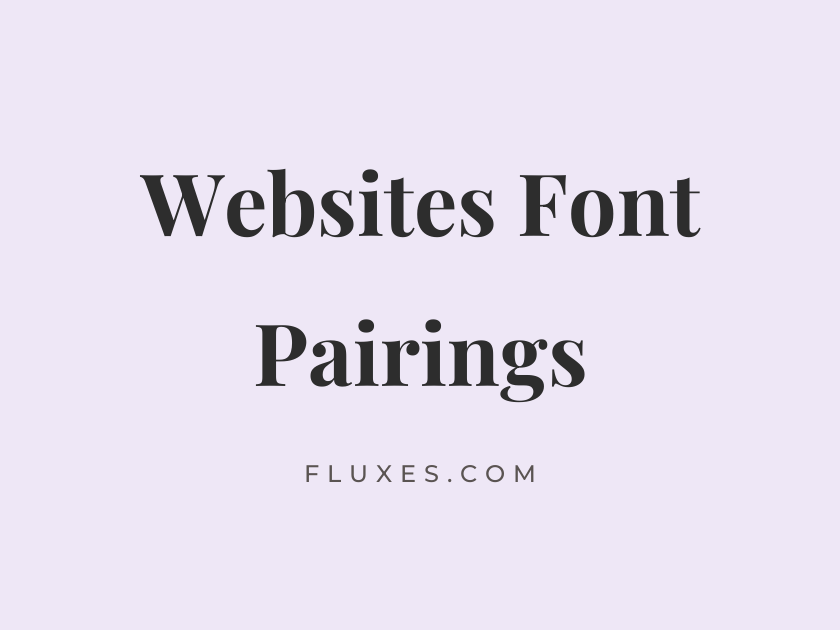
33 Best Font Pairings for Websites
A strong website relies on the same typographic logic as print: one font draws the eye, the other carries the reading. The pairings below cover the full range of web projects, from SaaS dashboards to editorial magazines, corporate sites to boutique shops, each chosen for a specific reason rather than a generic match. Every combination here uses fonts that are free on Google Fonts, so you can put them into production immediately.
1. Playfair Display + Noto Sans
Elegant Stories, Well Told
Playfair Display’s sharp contrast and generous serifs give headlines real presence, while Noto Sans’s plain, even strokes keep paragraphs easy on the eyes. The gap in personality between the two is exactly what makes the pairing work: readers never confuse the voice of the headline with the voice of the text. This combination suits editorial sites, boutique brands, and any homepage that wants a literary feel without sacrificing legibility.
2. Poppins + Inter
Build Something Remarkable
Poppins is a geometric sans with confident, rounded letterforms, and Inter was engineered specifically for screen reading at small sizes. Together they give a SaaS or startup site a friendly, modern voice up top with UI-grade clarity underneath.
3. Merriweather + Lato
Notes From the Field
Merriweather was drawn for screens, with sturdy serifs and a large x-height that survive small display sizes, and Lato’s warm, semi-rounded terminals keep body paragraphs approachable. Both fonts share a similar visual weight, so headings feel connected to the text rather than layered on top of it. It is a dependable choice for blogs and long-form content sites.
4. Montserrat + Karla
Design With Intention
Montserrat’s geometric structure, inspired by early twentieth-century urban lettering, gives headlines a confident, architectural feel. Karla’s grotesque simplicity and slightly quirky details keep the body text from feeling cold. This pairing reads well on agency and portfolio sites that want to look current without leaning trendy.
5. Libre Baskerville + Work Sans
Chapters Worth Reading
Libre Baskerville was specifically optimized for on-screen reading, so its transition into a body-adjacent headline font feels natural next to Work Sans, a humanist grotesque built for the same purpose. The two share proportions closely enough that the page never feels like it is fighting itself. Personal blogs and publishing sites benefit most from this restraint.
6. Oswald + Open Sans
Strong Headlines, Clean Copy
Oswald’s condensed proportions let headlines command attention without eating up vertical space, which is useful in tight hero sections. Open Sans is about as neutral as body text gets, so it steps back and lets the headline do the talking. This is a workhorse pairing for corporate and news-style websites.
7. Cormorant Garamond + Nunito Sans
Timeless Craft, Modern Home
Cormorant Garamond’s high contrast and delicate hairlines suggest luxury and heritage, an effect that works especially well at large display sizes. Nunito Sans balances that refinement with a soft, well-mannered body face that never competes for attention. Boutique retail, hospitality, and bridal sites lean on this kind of pairing often.
8. Raleway + Roboto
Launch Faster, Grow Smarter
Raleway’s elegant, single-story a and thin weights give headlines a light, modern touch, and Roboto’s mechanical regularity provides a stable, familiar reading experience underneath. The contrast in mood, refined above, functional below, mirrors how most product pages are structured. It is a common and reliable choice for startup landing pages.
9. Abril Fatface + PT Sans
Bold Statements, Beautifully Made
Abril Fatface’s extreme contrast and heavy stems make it one of the most attention-grabbing display serifs available for free, which is exactly why it needs a plain partner. PT Sans supplies that calm, giving the eye somewhere to rest after the drama of the headline. Fashion and lifestyle sites use this kind of pairing to create a strong visual hierarchy.
Check the pairing at the sizes it will actually appear on screen, not just in a mockup. A combination that looks striking at 60px can fall apart at 16px body size.
Match the mood of the fonts to the mood of the content before matching their shapes. A technically perfect pairing still fails if a playful display face sits atop a legal or financial site.
When in doubt, pair a characterful display font with a genuinely neutral body font. It is easier to balance one strong voice against one quiet one than to balance two strong voices against each other.